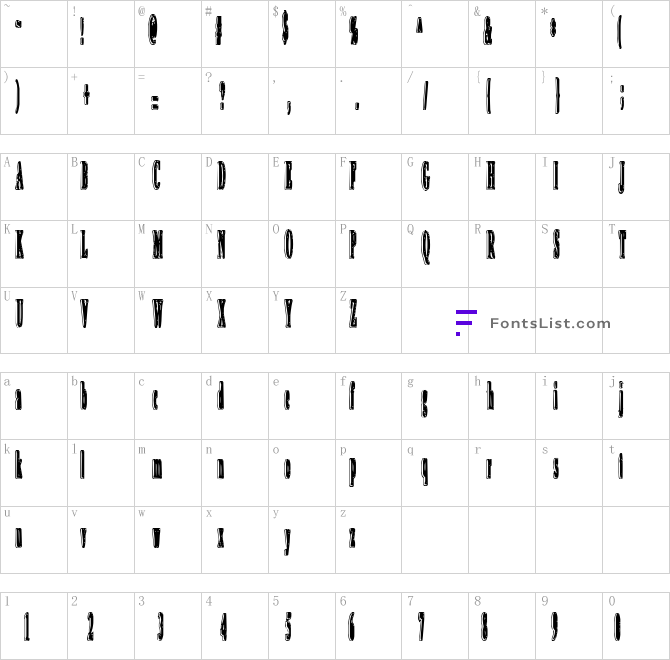
- Font Name:An irritating speck
An-irritating-speck.ttf is a very beautiful artistic font, An-irritating-speck.ttf is widely used in the design and printing of various books and pictures,An-irritating-speck.ttf has a strong visual impact,An-irritating-speck.ttf is a commonly used font in newspapers, magazines and books, and is used in posters, e-commerce Poster design, store design, logo design, font design and other fields.An-irritating-speck.